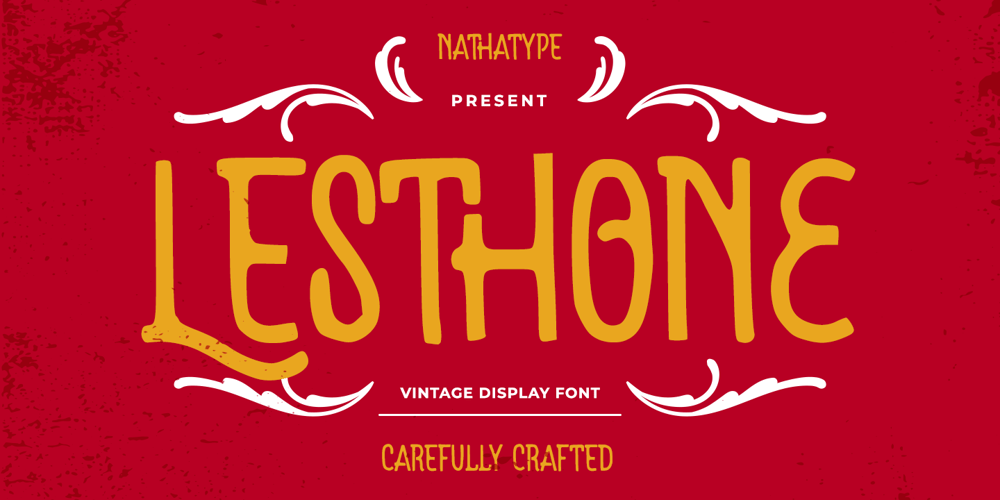
Lesthone Font Family was designed by Donis Miftahudin and published by Nathatype. Lesthone contains 1 styles and family package options. Lesthone is a display font that seamlessly merges vintage aesthetics with modern elegance. The rounded shapes of Lesthone contribute to its friendly looks. Each letter has its own personality, and this contributes to the font’s handcrafted appeal. On the other hand, the most standout characteristic of Lesthone is its slightly rough texture that add a rustic charm. This font includes beautiful ornaments as a bonus. Lesthone fits in headlines, logos, branding materials, and many more.